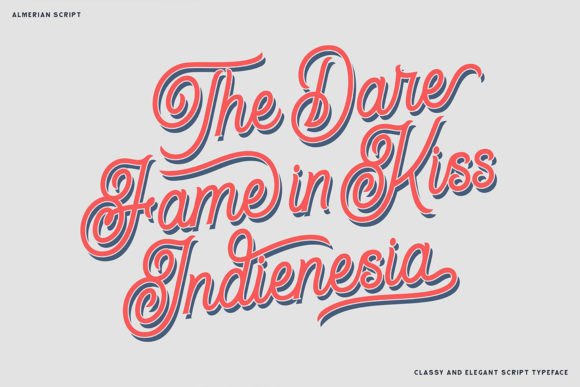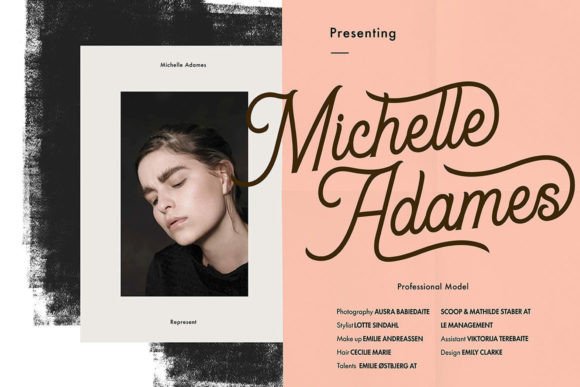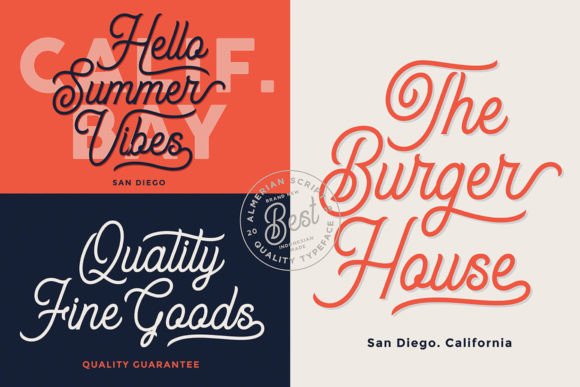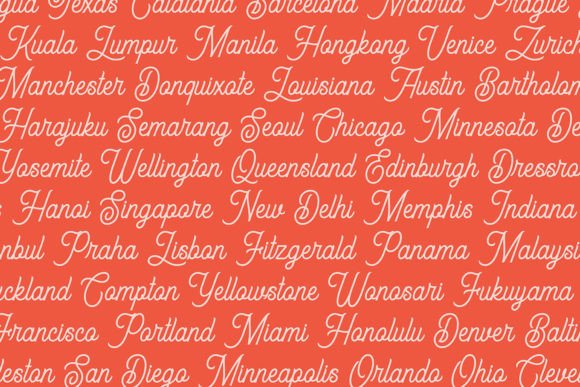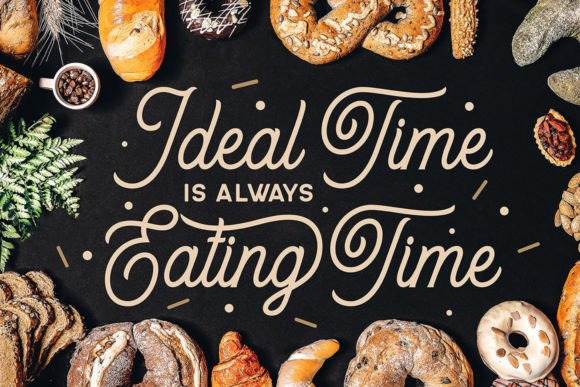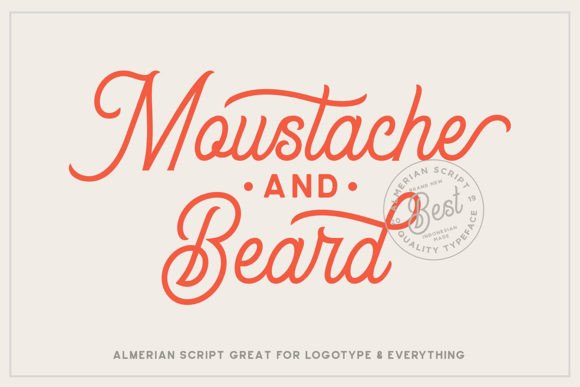
The Timeless Charm of Almerian Font: A Designer’s Delight
I still remember the design project that led me to discover the Almerian font. I was working on a vintage-inspired branding campaign for a luxury fashion brand, and I was struggling to find the perfect font that would evoke a sense of classic elegance with a modern twist. That’s when I stumbled upon Almerian, a beautiful script font that has since become a staple in my design toolkit.
A Personal Review of Almerian Font
- ✨ Beautifully crafted curves and flourishes that add a touch of sophistication to any design
- ✅ Vintage-inspired lettering that evokes a sense of timeless charm
- 💫 Perfect for designs that require a touch of elegance and luxury
- 🎨 Highly versatile and can be used for a variety of design projects, from branding to packaging
While Almerian is an amazing font, there are a few things to keep in mind:
- ⚠️ Some of the more intricate flourishes can be a bit finicky to work with, especially at smaller font sizes
- 🤔 The font can be a bit overused in certain design circles, so it’s essential to use it in a way that feels unique and creative
- Experiment with the font’s OpenType features, such as glyphs and stylistic alternates, to add some extra flair to your design
- Use the font’s OpenType features, such as ligatures and stylistic alternates, to add some extra depth to your design
- Experiment with the font’s glyphs and alternates to create unique and creative typography
The Backstory of Almerian Font
Almerian was designed by a team of typographers who were inspired by the classic elegance of vintage typography. With its beautifully crafted curves and flourishes, Almerian is the perfect font for designers who want to add a touch of sophistication to their designs.
| Font Name | Almerian Font |
| Author | JumboDesign |
Q: Is Almerian a difficult font to work with?
A: While Almerian has some intricate flourishes, it’s actually a relatively easy font to work with. Experiment with different OpenType features and glyphs to get the most out of the font.